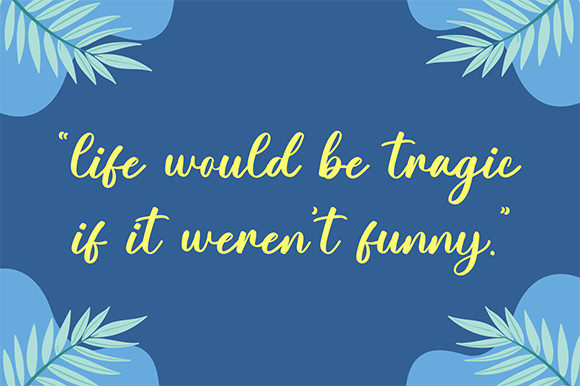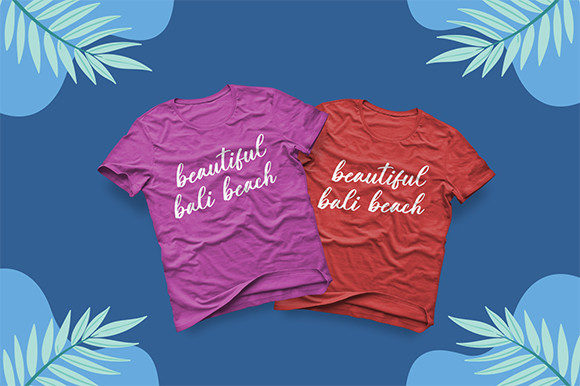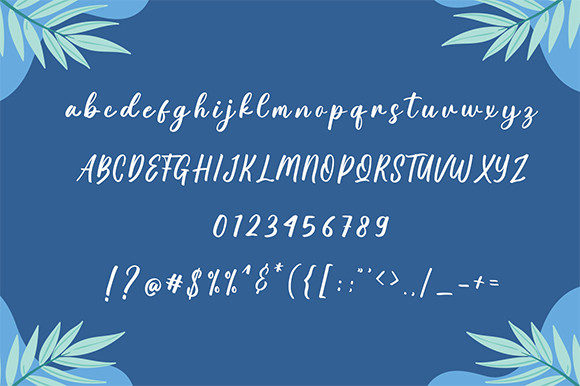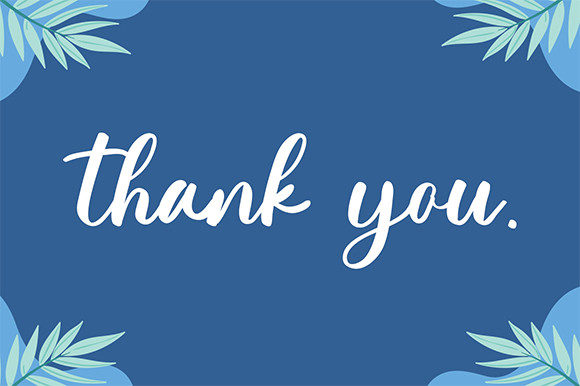
Kuta Beach Font
About Kuta Beach Font
“Kuta Beach” is a sweet and modern calligraphy font that exudes a beautiful and distinctive feel. The well-rounded letters contribute to the overall charm of this font, making it a masterpiece in its category. With its unique qualities, “Kuta Beach” is a perfect choice for a variety of design applications, including branding, fashion, weddings, social media, logotypes, magazines, quotes, lettering, watermarks, and invitations.
The sweet and modern calligraphy style of “Kuta Beach” adds an elegant and sophisticated touch to your designs. Its versatility allows it to seamlessly adapt to different contexts, making it suitable for both formal and creative projects. Whether you’re working on a wedding invitation, a fashion brand, or social media graphics, this font brings a sense of beauty and style.
The distinct and well-rounded letters in “Kuta Beach” contribute to its overall appeal, ensuring that it stands out as a masterpiece in the realm of calligraphy fonts. The balance between sweetness and modernity makes it a valuable asset for designers seeking a font that captures attention and adds a touch of elegance to their projects.
In summary, “Kuta Beach” is more than just a font; it’s a sweet and modern calligraphy masterpiece that enhances a wide range of design projects. Its distinct and well-rounded letters, combined with its versatility, make it a standout choice for creating beautiful and impactful visuals. Embrace the elegance of “Kuta Beach” and let it elevate your design endeavors across various applications.